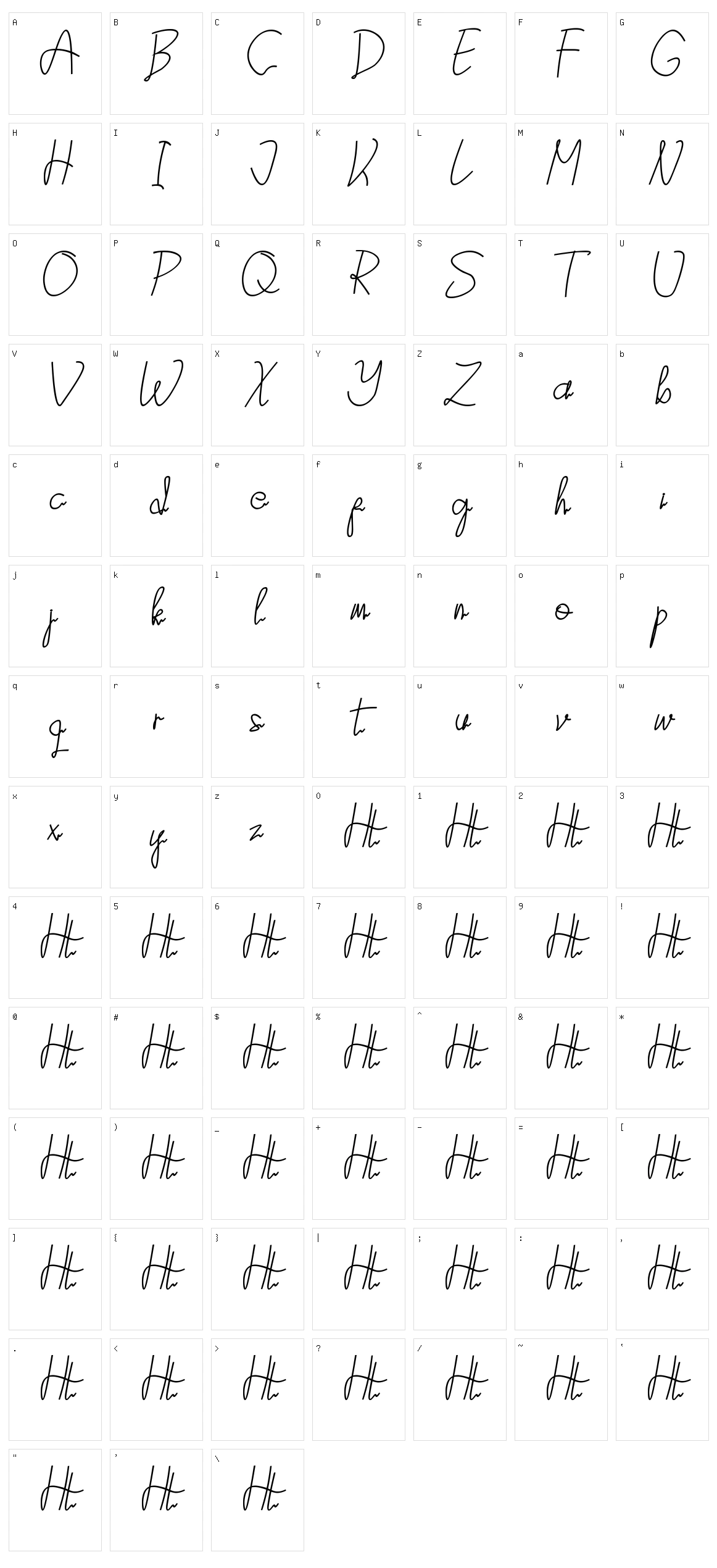
Attasey is modern feminine font, every single letters have been carefully crafted to make your text looks beautiful. With modern script style this font will perfect for many different project